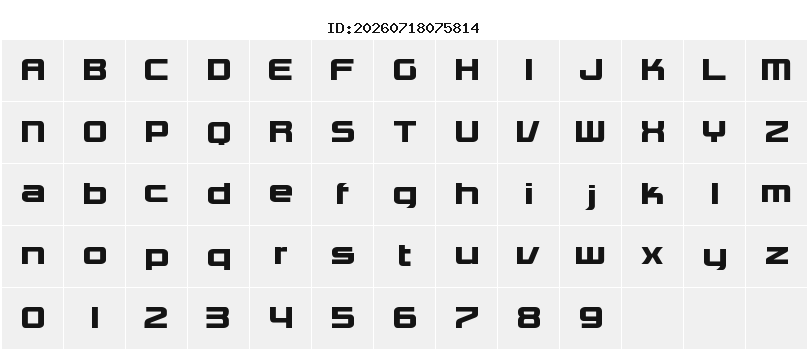
• Font Name: Charlie Brown M54
• Full Font Name: Charlie Brown M54
• Version: Version 1.00211 February 11, 2010, initial release
• Copyright: © 2009 Mohammed Rahman
• Designer: Mohammed Rahman
• Manufacturer: M54 (justme54s)
About Charlie Brown M54.ttf
Charlie Brown M54.ttf is a modern, elegant sans-serif font designed for ultimate readability and visual harmony. Perfect for branding, headlines, web design, and print materials.